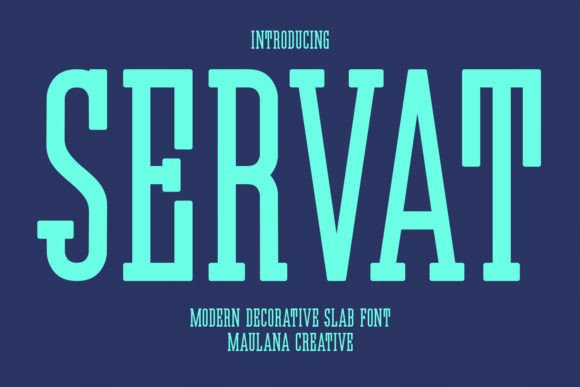
Unleash the Power of Bold Statements with Servat Font: The Ultimate Expression of Strength and Character
In a world saturated with digital noise, it takes more than just words to make an impact. Introducing Servat Font, the retro semi-slab serif font that amplifies your message with unwavering boldness and unwavering personality. Crafted with precision and passion by Maulana Creative, Servat is not just a font; it's a statement of confidence that speaks volumes through its visually striking presence.
Step into the spotlight with Servat Font and watch your designs transcend the ordinary. Whether you're a seasoned designer seeking to leave an unforgettable mark or an aspiring entrepreneur ready to make a statement, Servat Font is your secret weapon to cut through the clutter and captivate your audience.
With its unwavering strength and undeniable character, Servat Font is the ultimate choice for those who seek to make a bold impact. Its solid, well-defined serifs exude an air of authority and command attention, making it the perfect choice for headlines, logos, and branding elements. The font's generous curves and flowing letterforms add a touch of elegance and sophistication, ensuring your message is not just heard but remembered.
Experience the versatility of Servat Font, which seamlessly adapts to a variety of design projects. From website headers and social media graphics to print advertising and product packaging, Servat Font effortlessly elevates the impact of your creative vision. Its ability to convey a range of emotions, from playful and lighthearted to serious and authoritative, makes it an invaluable asset for designers of all skill levels.
Unlock your creative potential and unleash the power of boldness with Servat Font. Its intuitive design and effortless flow make it a joy to use, ensuring that your creative juices keep flowing without hindrance. Let your imagination soar as you explore the endless possibilities of self-expression with Servat Font.
Don't settle for ordinary fonts that blend into the background. Embrace the transformative power of Servat Font and let your designs speak volumes. Its unwavering boldness and undeniable character will leave a lasting impression on your audience, propelling your brand to new heights of success.